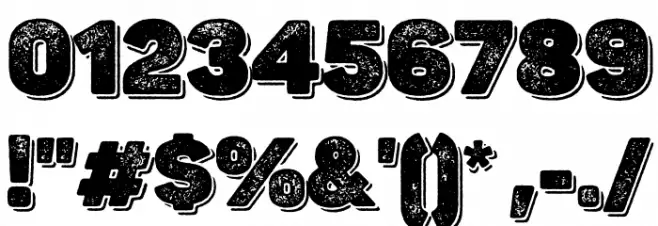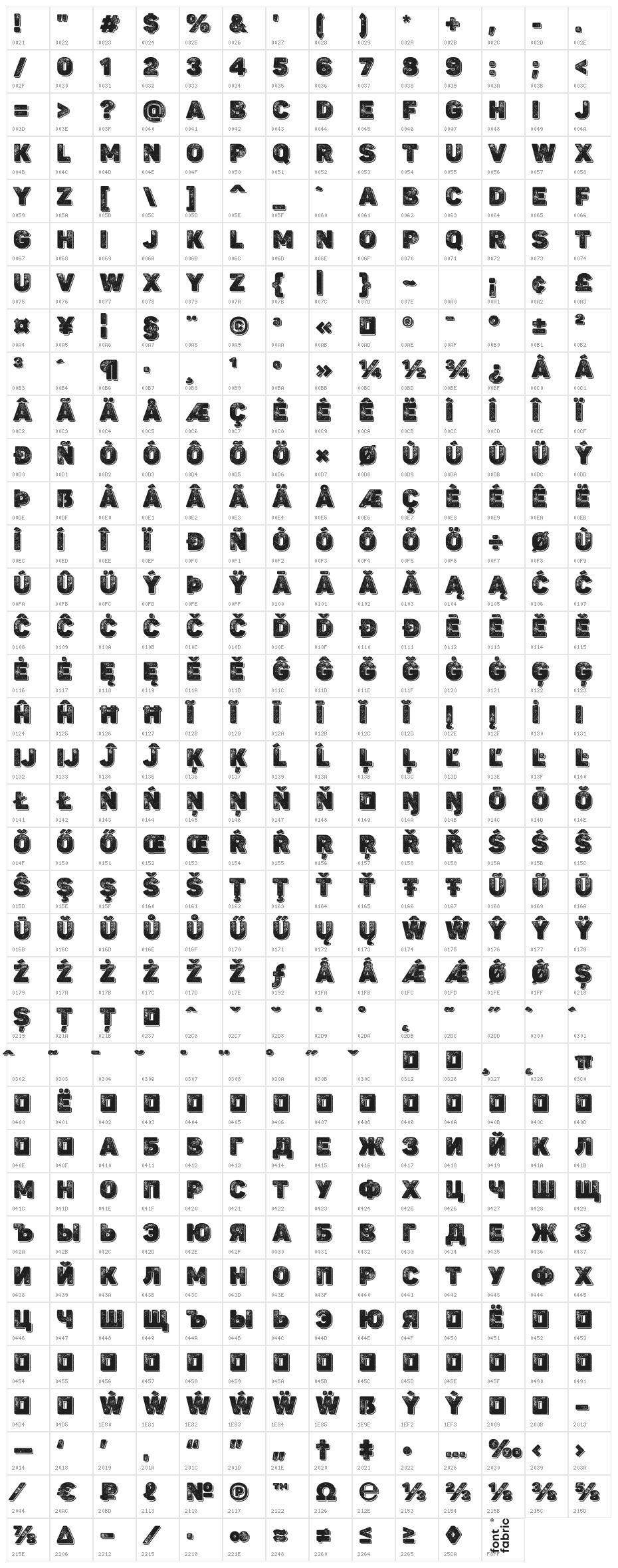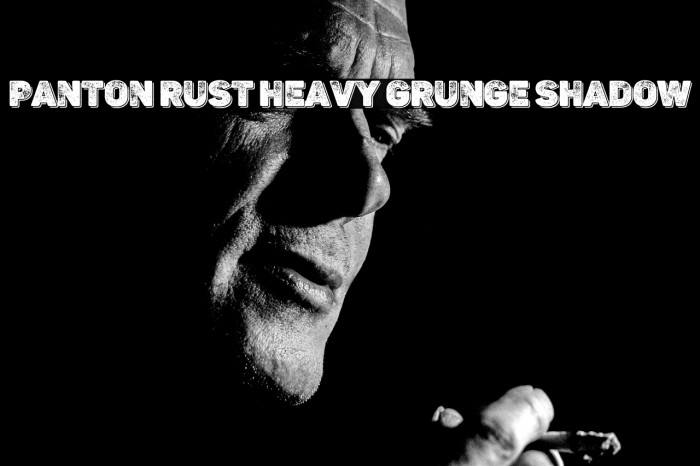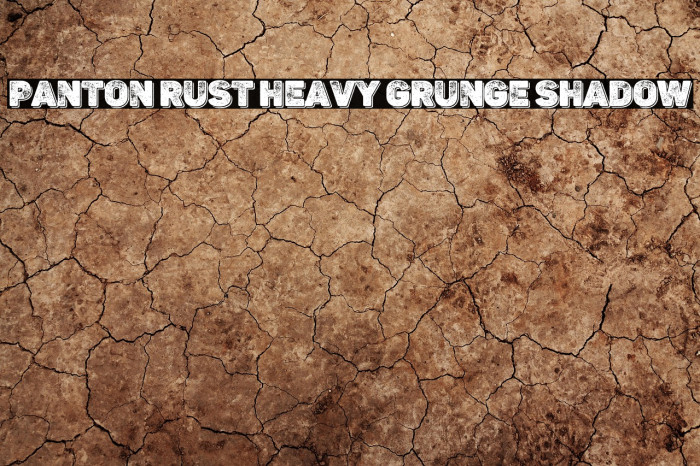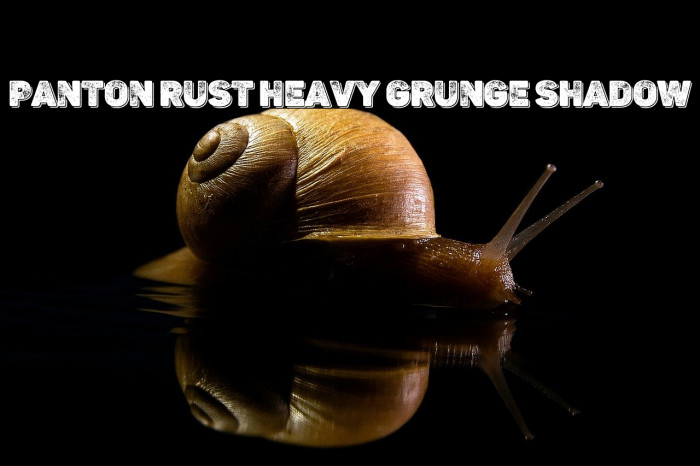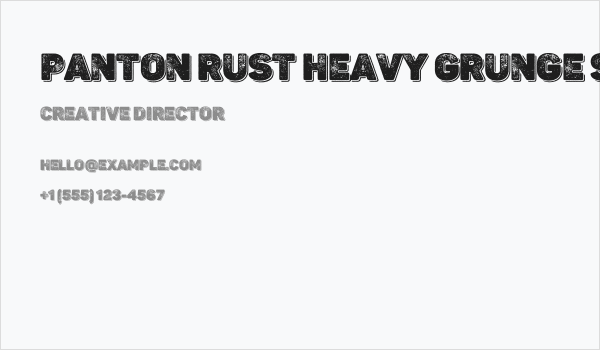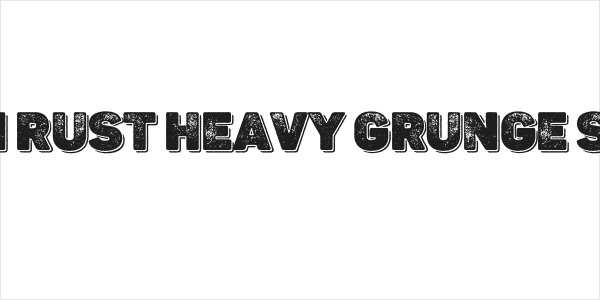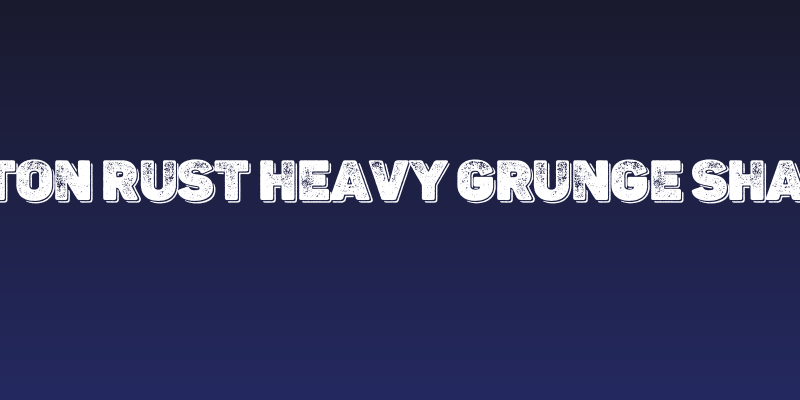
Panton Rust Heavy Grunge Shadow Font
Panton Rust Heavy Grunge Shadow Description
This font features a bold, heavy style with a distinct grunge texture that gives it a rugged, distressed appearance. The characters are blocky and robust, with a shadow effect that adds depth and dimension. The texture is uneven, creating a worn and vintage look, perfect for projects that require a strong, impactful visual statement. The uppercase and lowercase letters maintain a consistent style, while the numbers and special characters complement the overall aesthetic. This font is ideal for designs that aim to convey a sense of toughness or nostalgia.
| Proposed Projects | Ideal for posters, album covers, branding for edgy products, or any design needing a vintage, rugged look. |